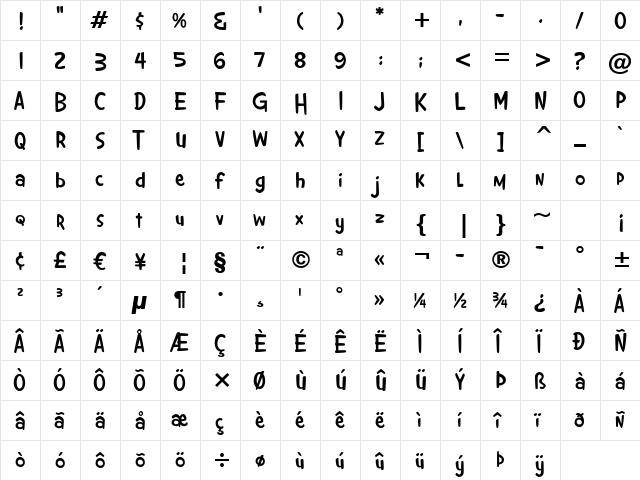
Giggles BTN Regular
Design Context for Giggles BTN Typeface
Giggles BTN is a composed and adaptable typeface that performs quietly and consistently across a wide range of design contexts.